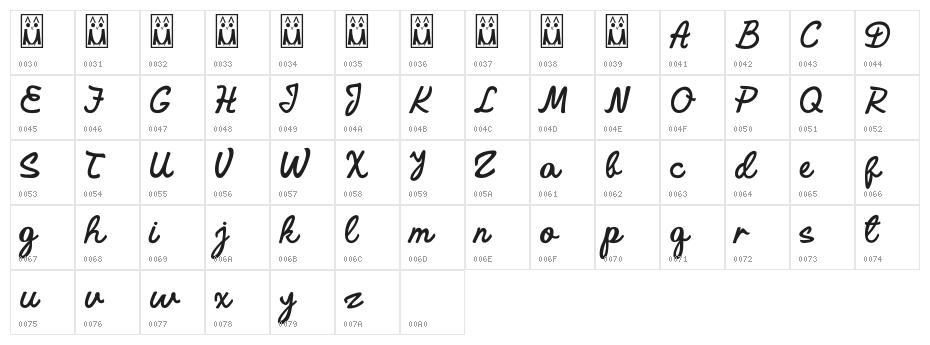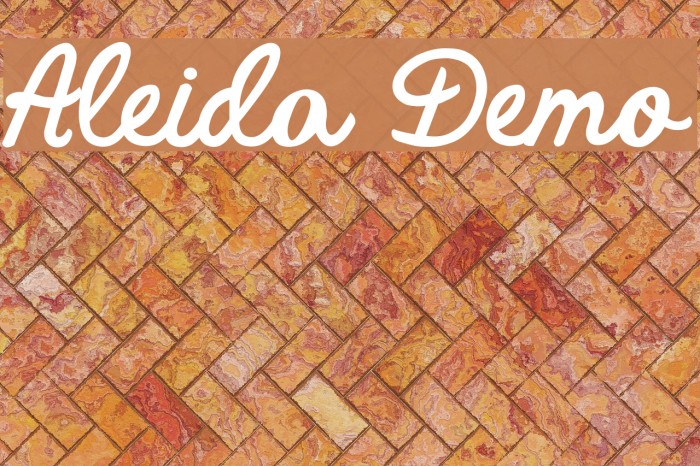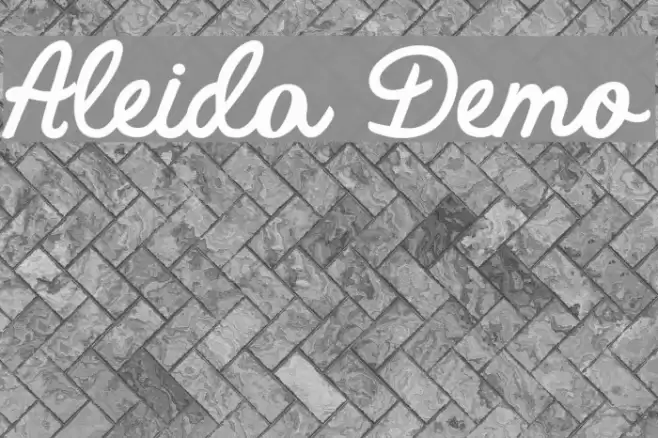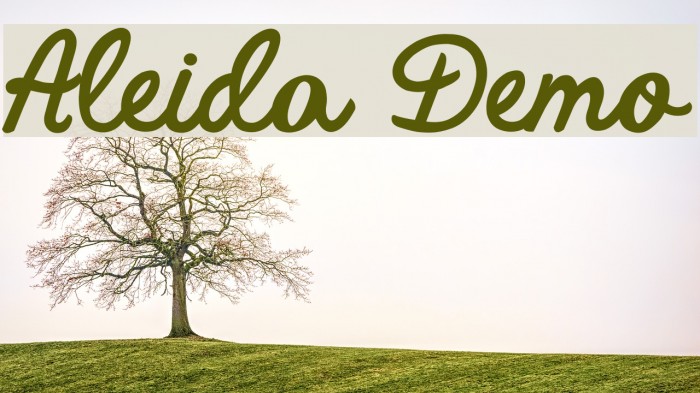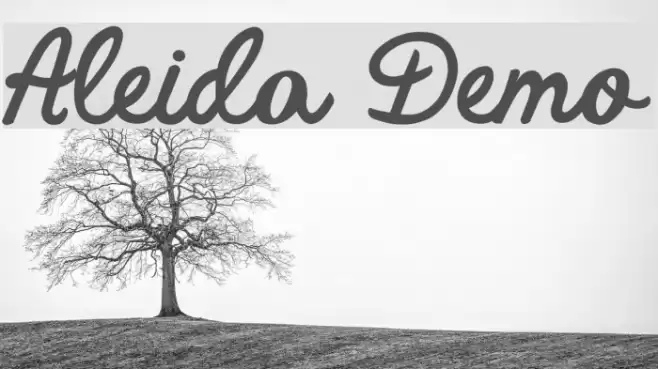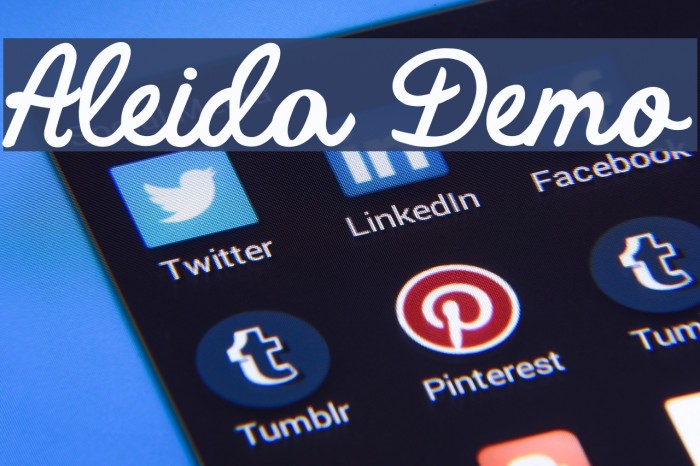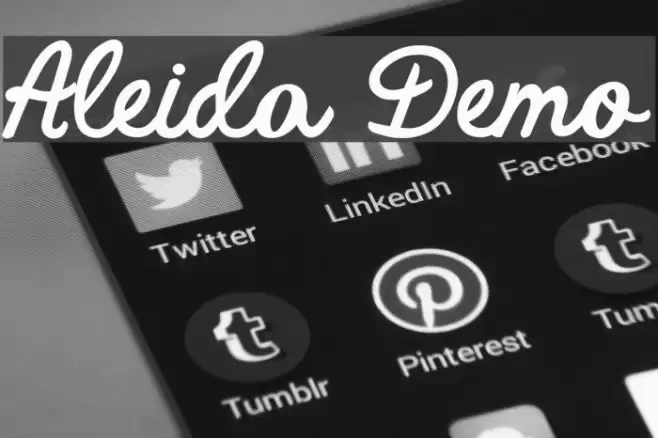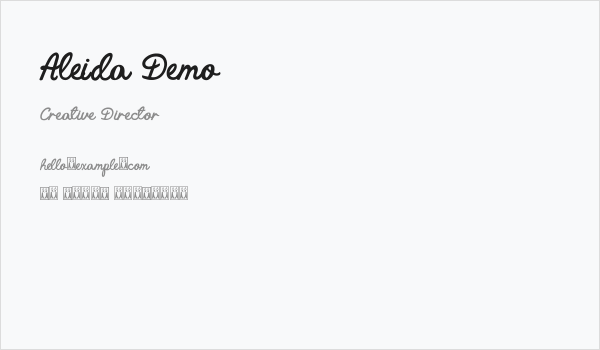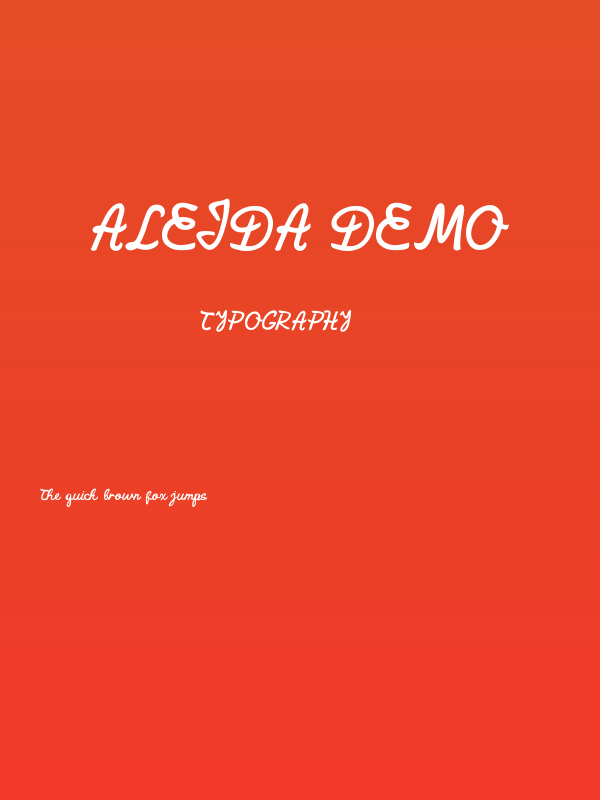
Aleida Demo Font
Aleida Demo Description
This font features a flowing, cursive style with smooth, connected strokes that give it a handwritten appearance. The uppercase letters are bold and slightly slanted, while the lowercase letters maintain a consistent flow with elegant loops and curves. The font exudes a sense of casual elegance, making it suitable for projects that require a personal touch. The characters are well-spaced, ensuring readability while maintaining the script's fluidity. The overall design is modern yet timeless, offering versatility for various creative applications.
| Use Case | Logos, Invitations, Personal branding |
| Proposed Projects | Ideal for wedding invitations, greeting cards, personal branding, and logo design. |